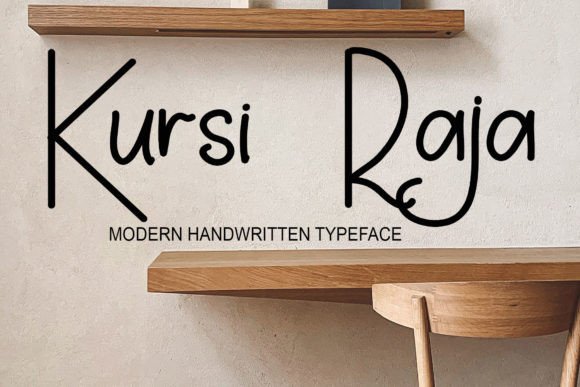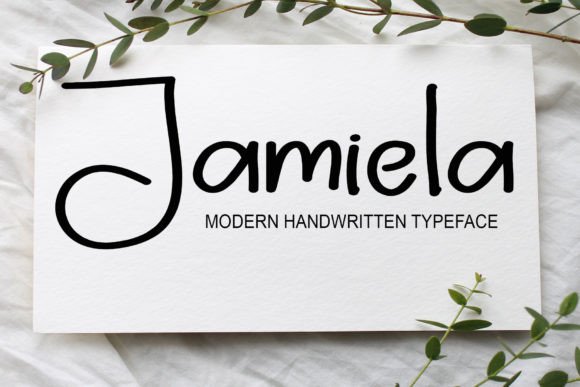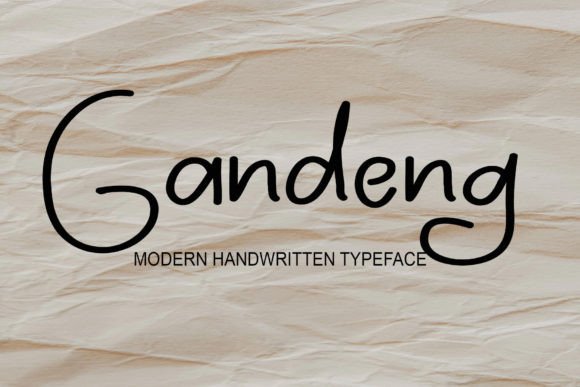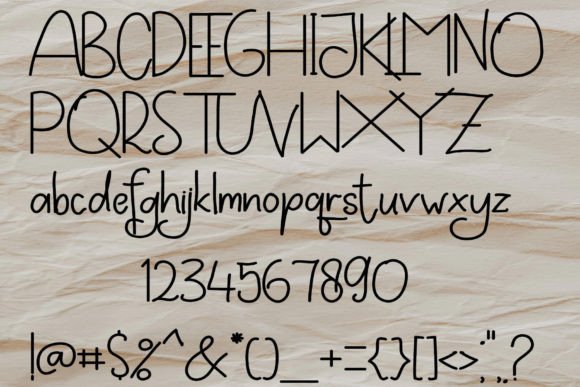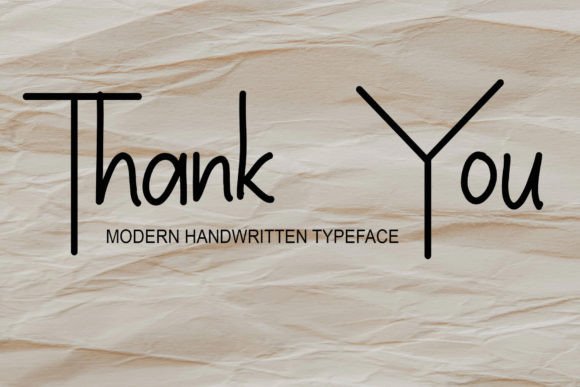
Discover Your New Favorite Font: Atakana Font
You know that feeling when you’re in the middle of a creative project and everything just clicks? The colors, the shapes, the typography – it all comes together in perfect harmony. That’s what I’m talking about when I say that the right font can make all the difference. For me, that font is the Atakana Font. With its casual and neat handwritten style, it’s the perfect addition to any project, whether you’re crafting, designing digitally, or creating presentations.
Atakana Font is more than just a pretty face – it’s a valuable tool for designers. Its versatility makes it suitable for a wide range of projects, from greeting cards to blog posts. And the best part? It’s easy to use and customize, making it a go-to font for anyone looking to add a personal touch to their work.
Atakana Font Key Features
- Character Set: The font includes a comprehensive character set, including uppercase and lowercase letters, numbers, punctuation marks, and special characters, making it suitable for various languages and applications.
- Unique Characteristics: The font’s unique blend of modern and traditional design elements, combined with its bold and playful personality, makes it an ideal choice for creative and artistic applications.
Atakana Font Review
Overall, I found the Atakana font to be a unique and interesting choice for designers. ✨ One of the things that stands out about this font is its organic and natural feel, making it perfect for designs that require a more earthy tone. ✨ The font’s letterforms are well-designed, with a good balance of curves and straight lines that create a visually appealing aesthetic.
Another strength of the Atakana font is its versatility. ✨ It can be used for a wide range of projects, from logos and branding to body text and signage. The font’s open-source license also makes it easily accessible to designers of all levels.
- ⚠️ The font may not be suitable for all types of designs, particularly those that require a more modern or sleek aesthetic.
- ⚠️ Some users may find the font’s natural feel to be too busy or distracting, particularly at smaller font sizes.
- ⚠️ The font’s character set is limited compared to other fonts, which may make it less suitable for designs that require a wide range of languages or special characters.
Overall, I would recommend the Atakana font to designers who are looking for a unique and natural aesthetic for their projects. While it may have some limitations, its versatility and open-source license make it a great choice for designers of all levels.
The Atakana font is ideal for:
- Displaying quotes and poetry
For optimal results, use the Atakana font in combination with bold and italic styles to add emphasis and depth to your design.